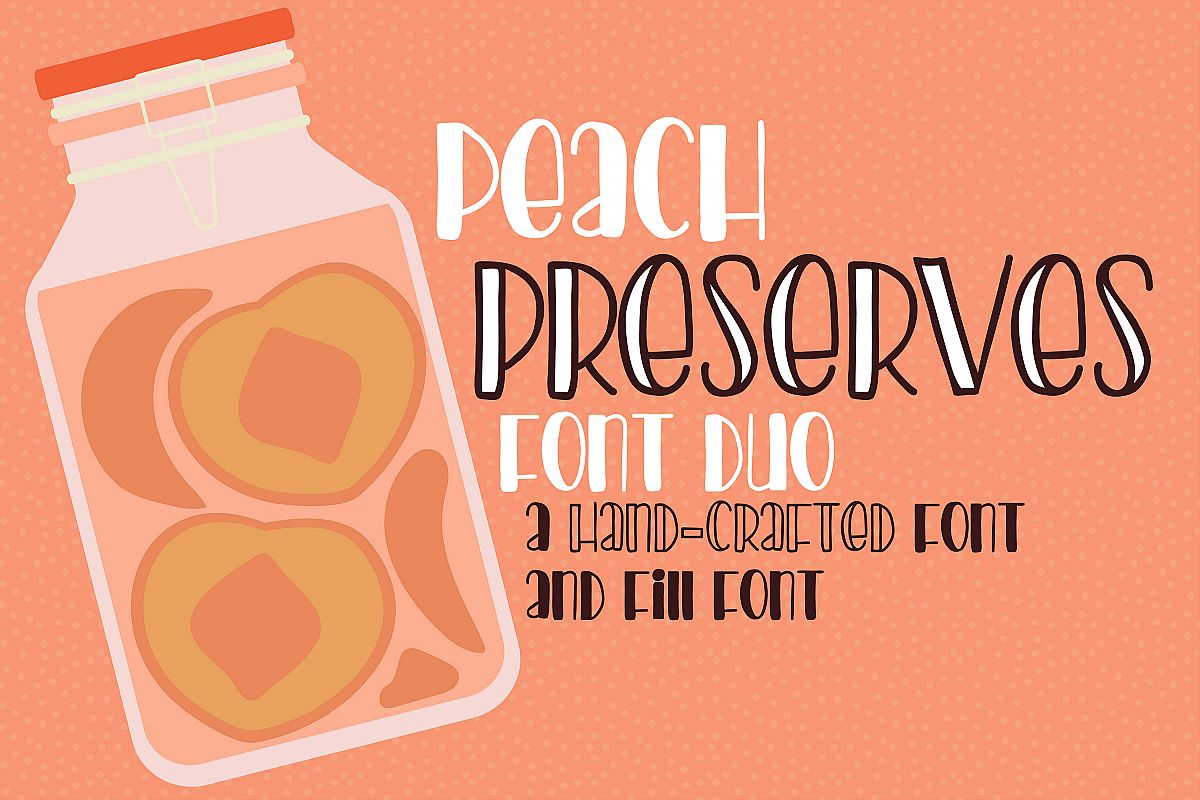
This cute hand-crafted font duo is a crafty font set consisting of a "fill" or "solid" font an "outlined" version. Use together or pair it with their sister font, PN Americana Perserves.